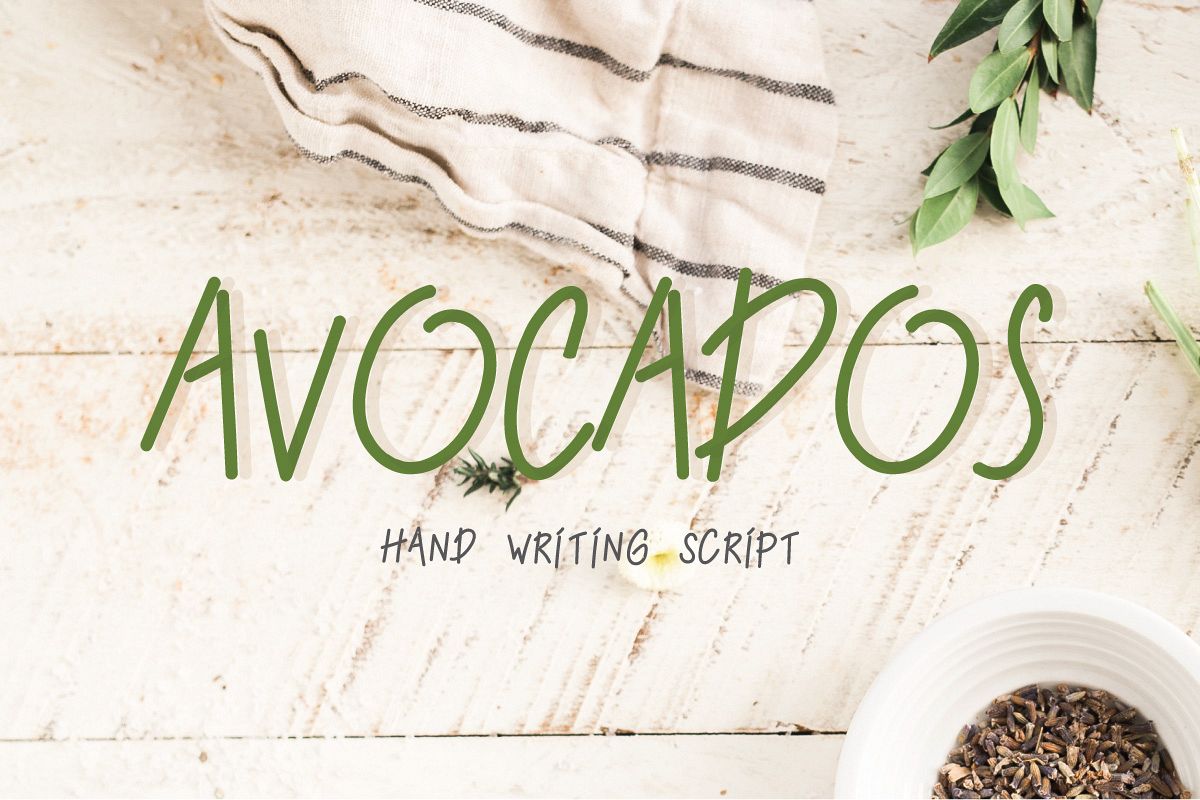
Avocados typeface is a live handwriting script perfect for title, brand, poster, post card, menu , and many other designs things you might think of! It also useful for festive theme like valentine,christmas,easter,etc. Download now and enjoy! Available :